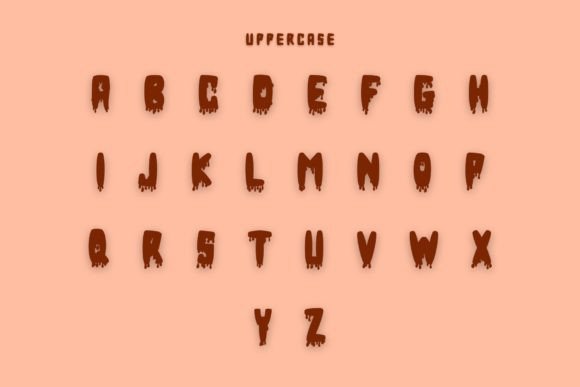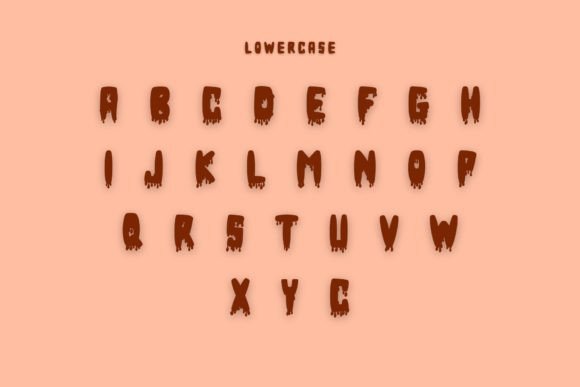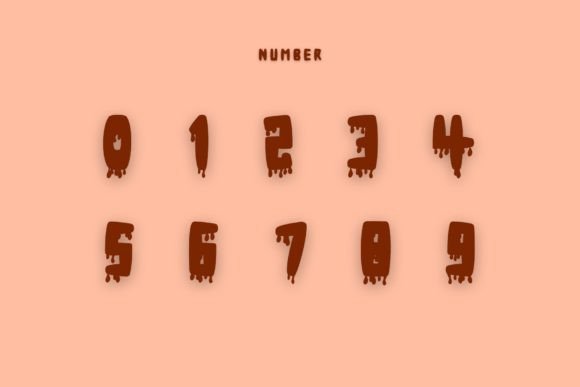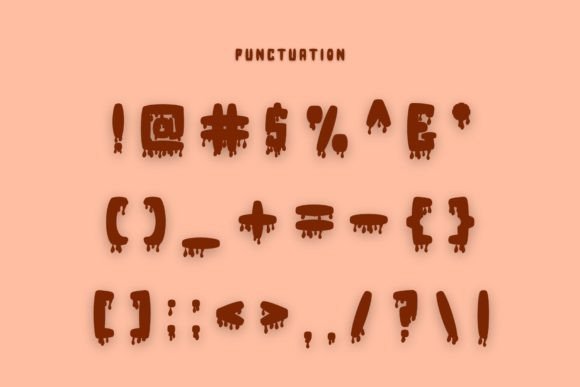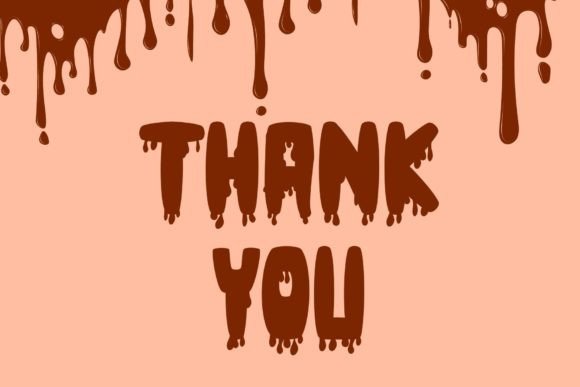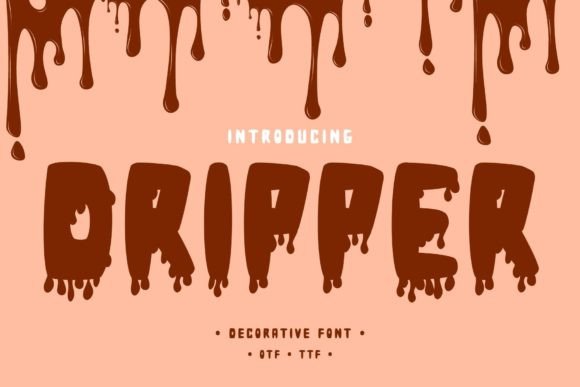
Dripper Font: The Ultimate Choice for Spooky and Fun Designs
Are you looking for a font that can add a touch of playfulness and authenticity to your designs? Look no further than the Dripper Font! This scary and fun decorative font is perfect for all your favorite Halloween projects, and its versatility makes it suitable for a wide range of applications, from blog posts and logos to invitations and decorations.
What is Dripper Font?
Dripper Font is a unique and eye-catching decorative font that is sure to make your designs stand out. Its playful and authentic style makes it perfect for adding a touch of personality to your projects. Whether you’re creating spooky Halloween decorations or fun and colorful blog posts, Dripper Font is the perfect choice.
Features of Dripper Font
- Playful and Authentic Style: Dripper Font embodies playfulness and authenticity, making it perfect for designs that require a touch of personality.
- Versatile: This font is suitable for a wide range of applications, including blog posts, logos, branding, ads, invitations, greeting cards, planners, photo albums, decorations, and more.
- High-Quality: This font is designed with high-quality and clarity in mind, ensuring that it looks great in any design.
Uses of Dripper Font
Dripper Font is perfect for a wide range of design projects, including:
- Halloween Projects: Create spooky and fun Halloween decorations, invitations, and greeting cards with Dripper Font.
- Blog Posts: Add a touch of personality to your blog posts with Dripper Font, making them more engaging and fun to read.
- Logos and Branding: Use Dripper Font to create unique and eye-catching logos and branding materials that reflect your brand’s personality.
- Ads and Invitations: Create eye-catching ads and invitations with Dripper Font, perfect for grabbing attention and making a lasting impression.
- Greeting Cards and Planners: Add a touch of personality to your greeting cards and planners with Dripper Font, making them more special and unique.
- Photo Albums and Decorations: Use Dripper Font to create beautiful and unique photo albums and decorations that showcase your personality and style.
Why Choose Dripper Font?
- Unique and Eye-Catching: Dripper Font is a unique and eye-catching font that is sure to make your designs stand out.
- Playful and Authentic: This font embodies playfulness and authenticity, making it perfect for designs that require a touch of personality.
- Versatile: Dripper Font is suitable for a wide range of applications, making it a great addition to any designer’s toolkit.